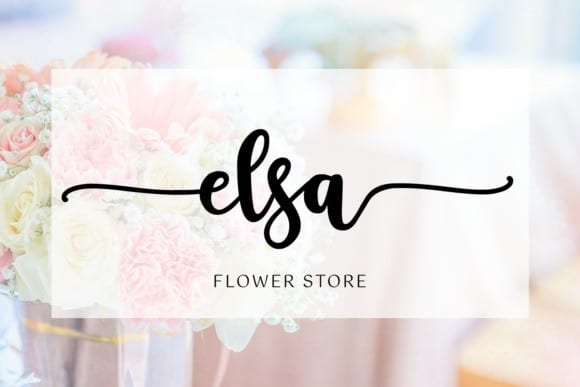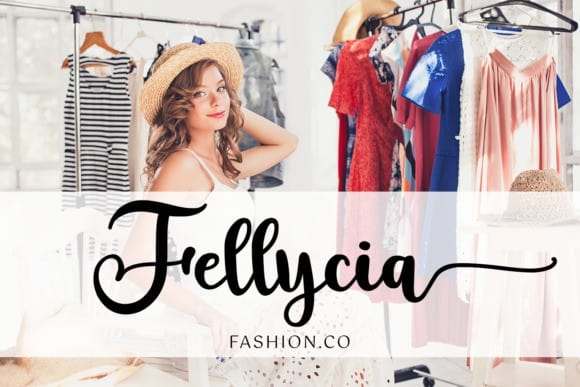
Say hello to Shalma Calligraphy Font. is a beautiful calligraphy script font. This font includes extra flourishes so you can customize your letters as you please! Just weld them to your letters to customize! It’s designed and shared by Girinesia. It’s a bold and beautiful handwritten font, carefully handcrafted to become a true favorite. This font is the perfect for branding projects, logo, wedding designs, social media posts, advertisements, product packaging, T-shirt design, product designs, label, photography, watermark, invitation, stationery, and any projects.